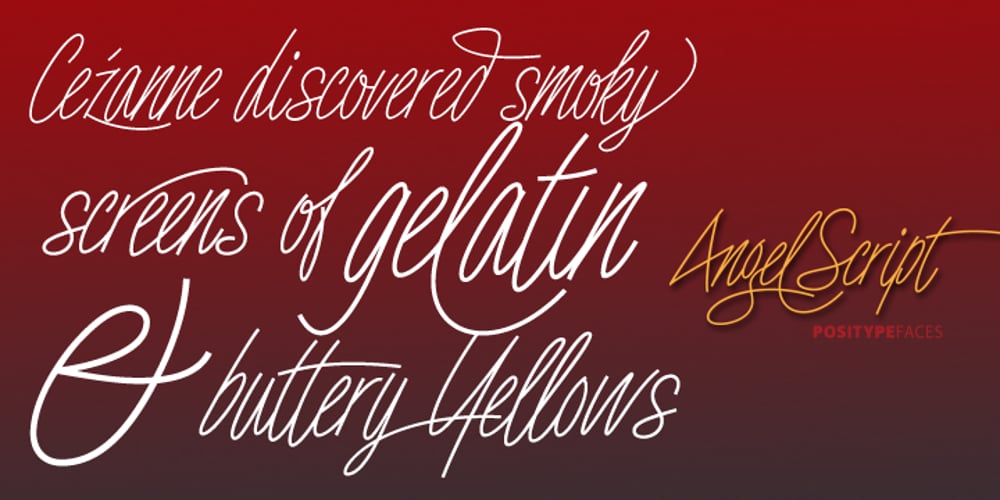
Angel Script Font Family was designed by Neil Summerour and published by Positype. Angel Script contains 1 styles and family package options. Angel Script is a light, contemporary monoline script. There are approximately 695 individual glyphs complete with Stylistic and Contextual Alternates, Titling Alternates, Swashes and even Old Style Numerals. Needless to say, there’s a lot ‘under the hood’, and the typographic flexibility I wanted with earlier concepts shows in grand style with this release. The single weight font includes a complete Central European and Western diacritic set as well.